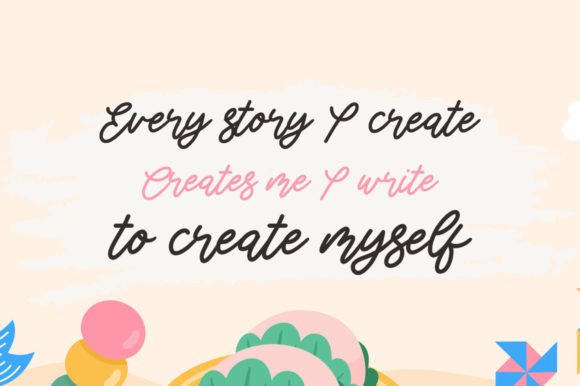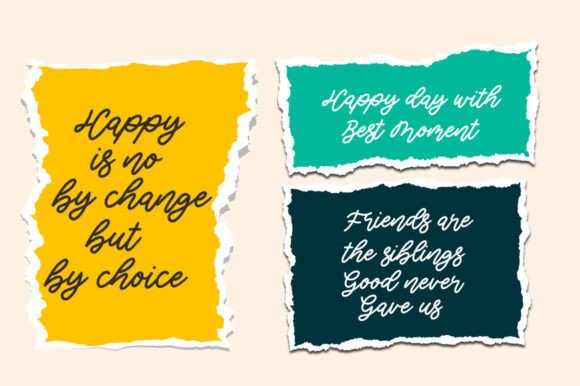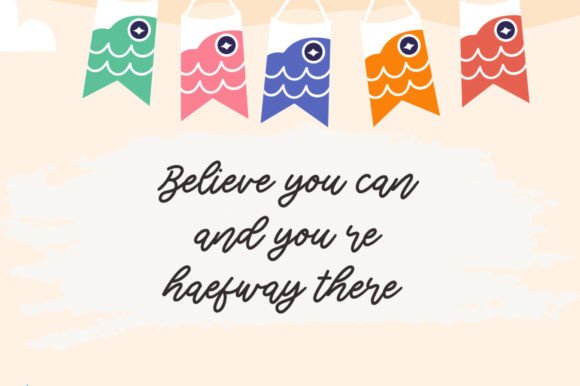
Introduction to Hey Moon Font
Hey Moon is a sweet and exquisite typeface that’s perfect for adding a touch of elegance to your designs.
With its delicate and flowing letterforms, this font is ideal for invitations, greeting cards, and other delicate projects Its charming and sophisticated style will bring a touch of refinement to any design.